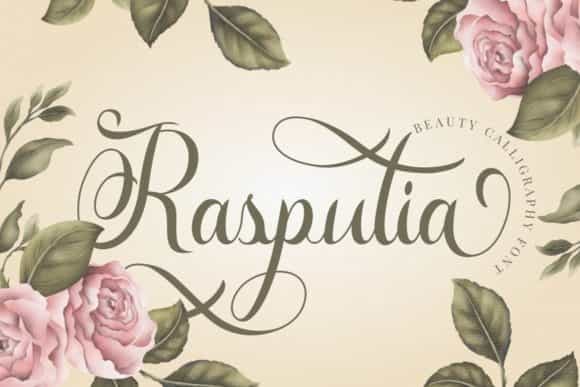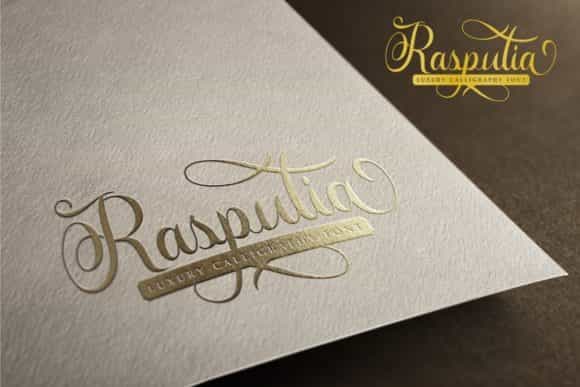
Rasputia Font is a calligraphic manuscript with modern, dynamic and pretty swashes. Can be applied for various uses. like title, signature, logo, wedding invitations, letterhead, signage Rasputia has Open type which includes both the initial and terminal letters, ligatures and International support for most Western languages.